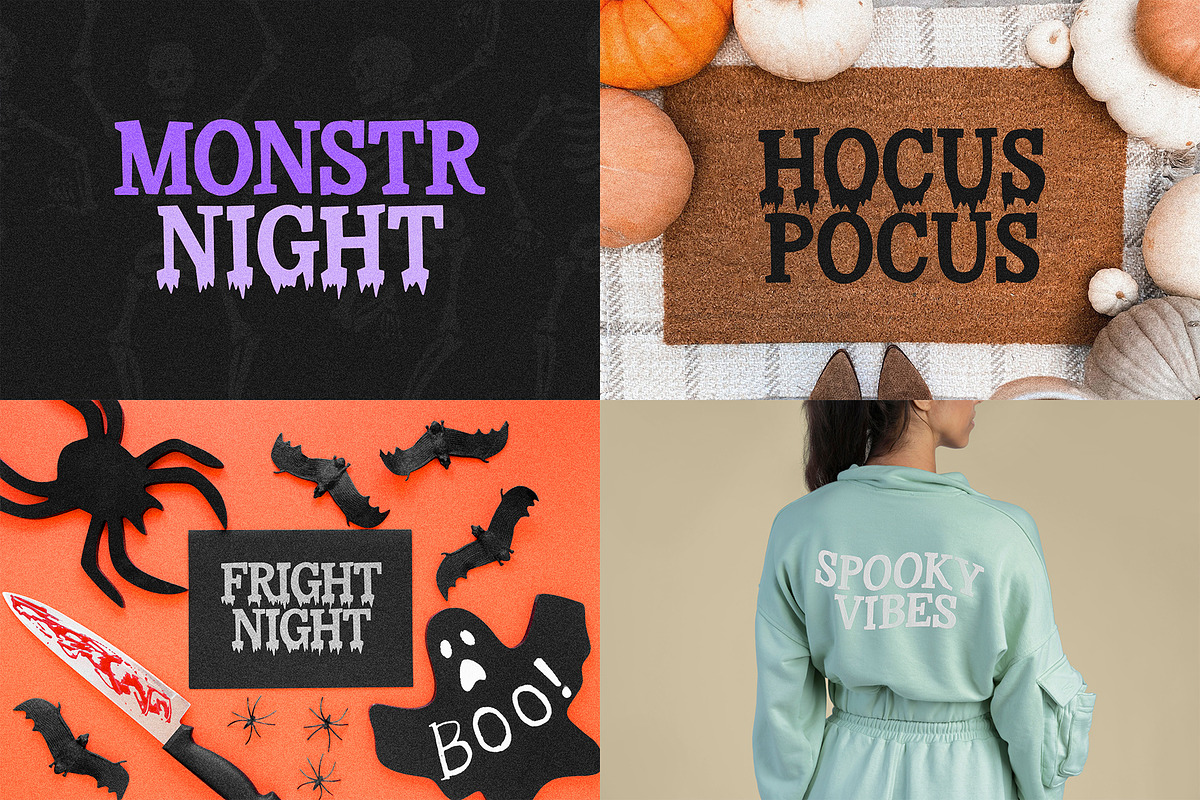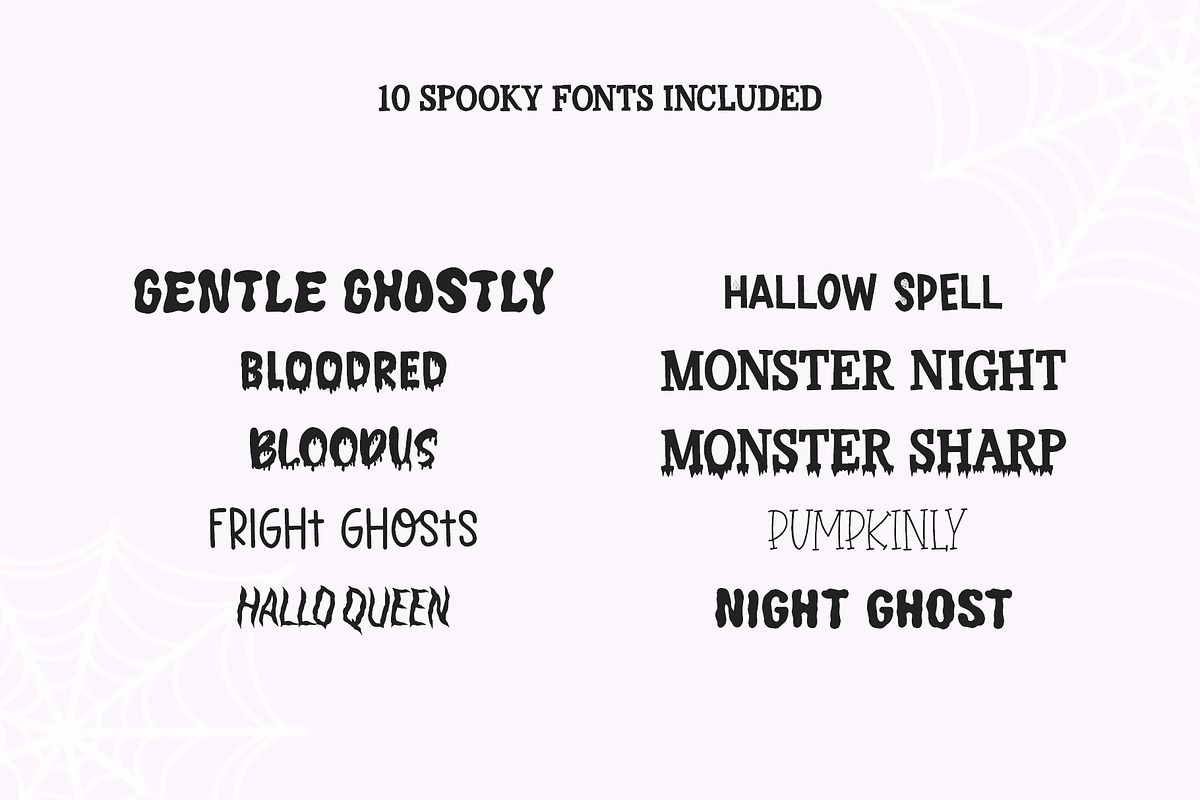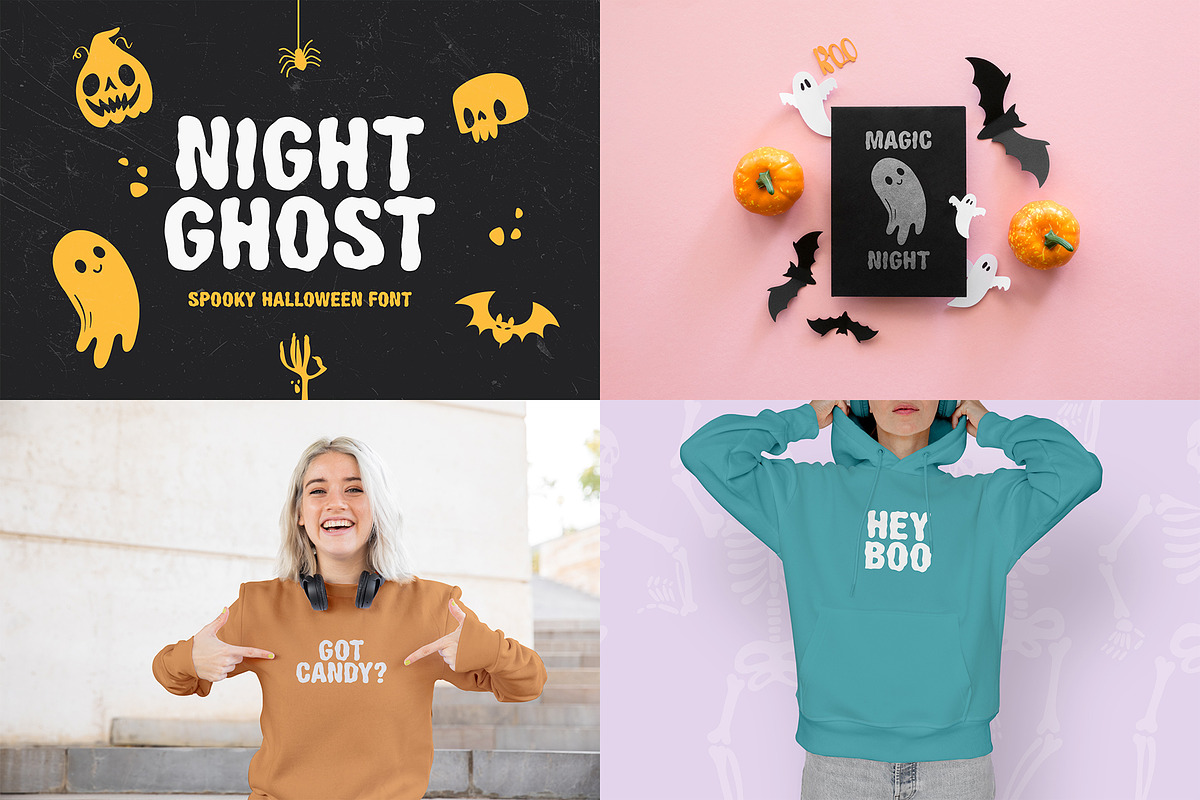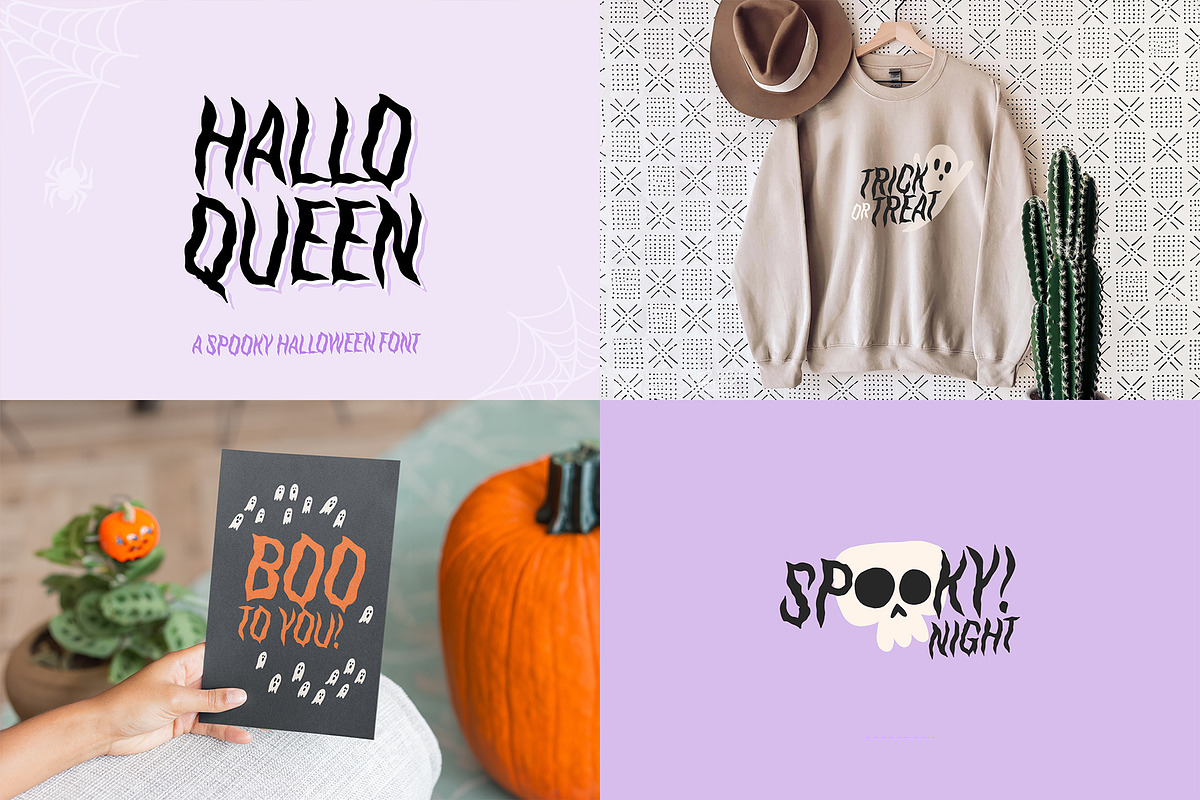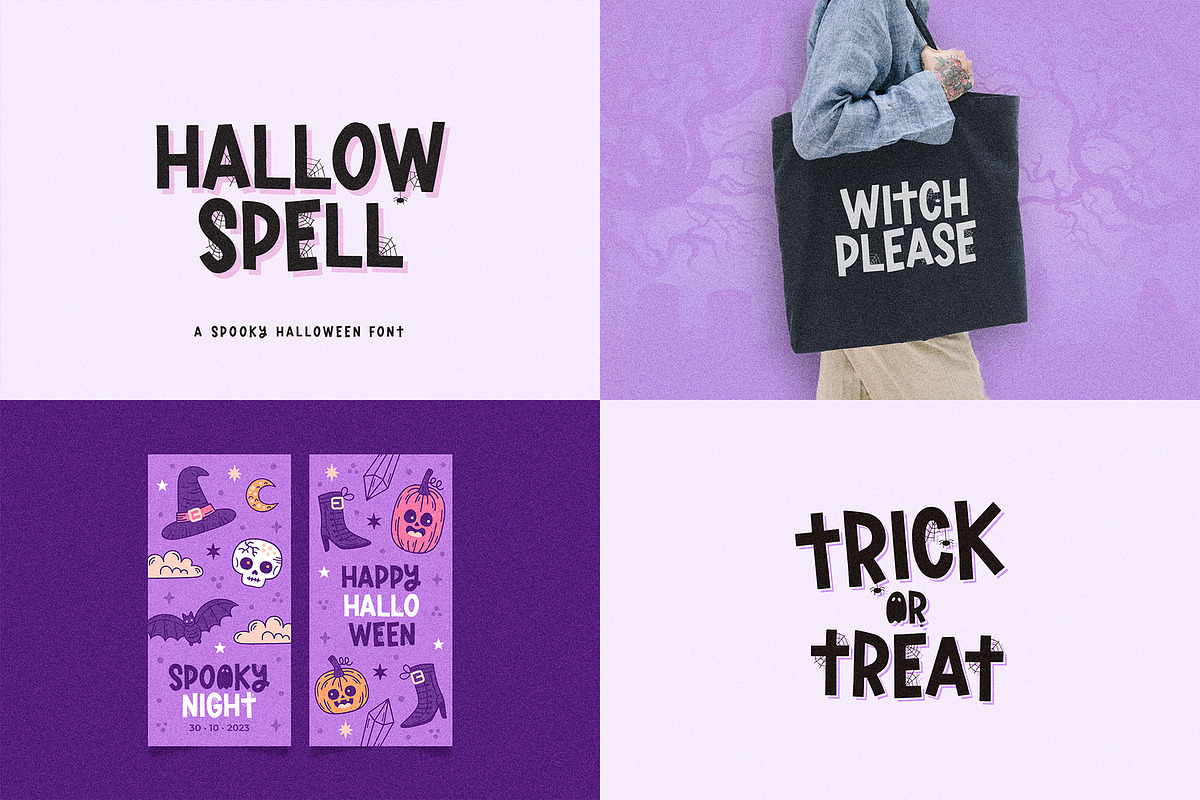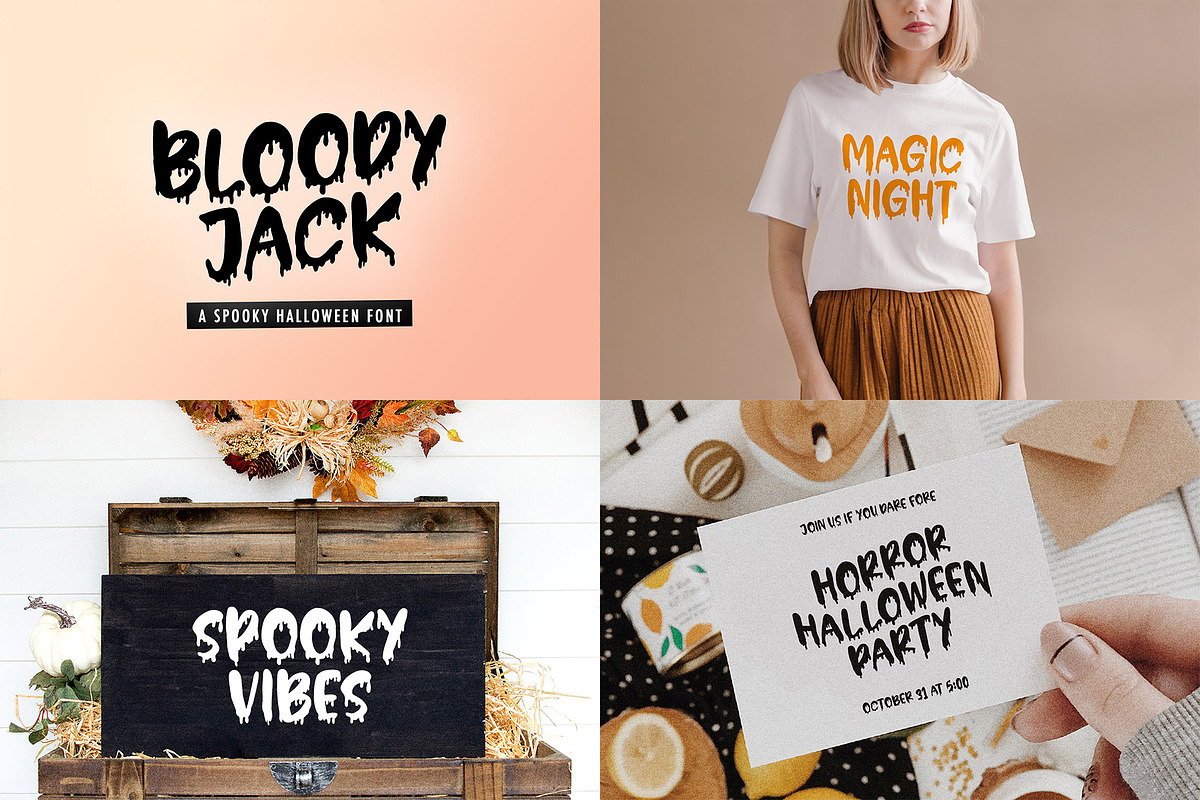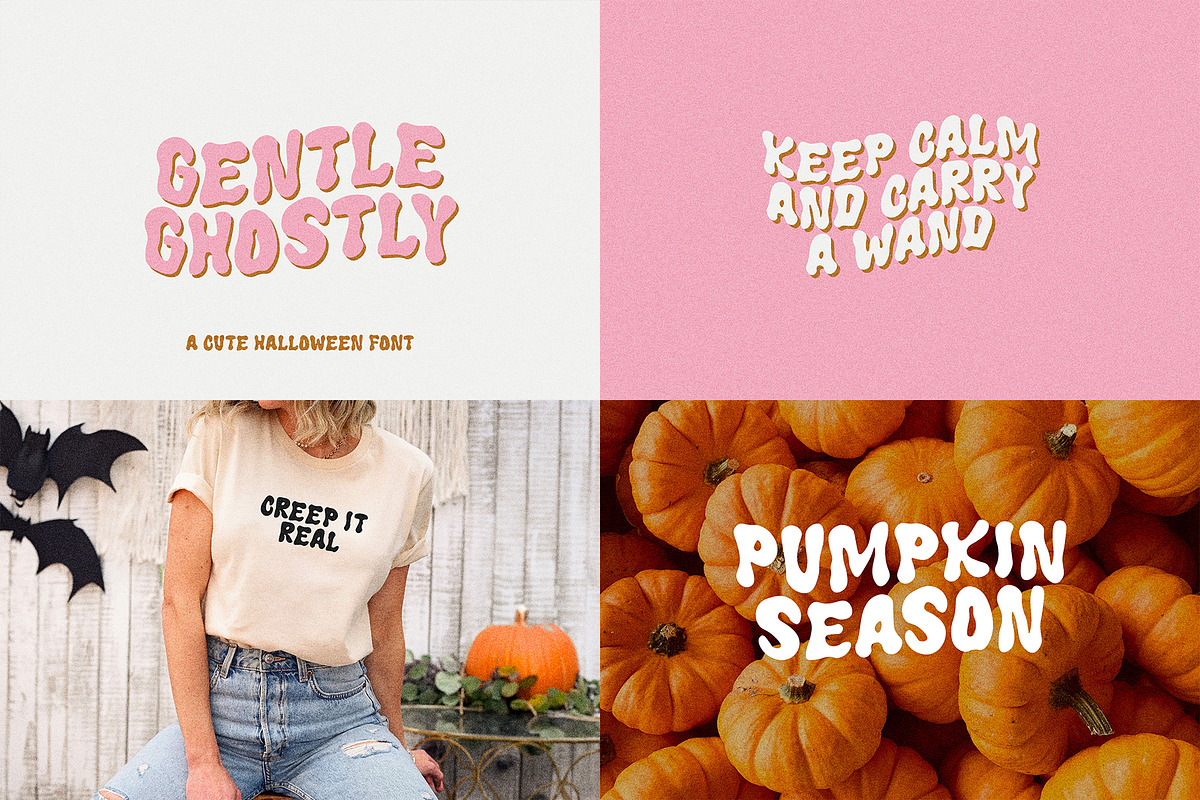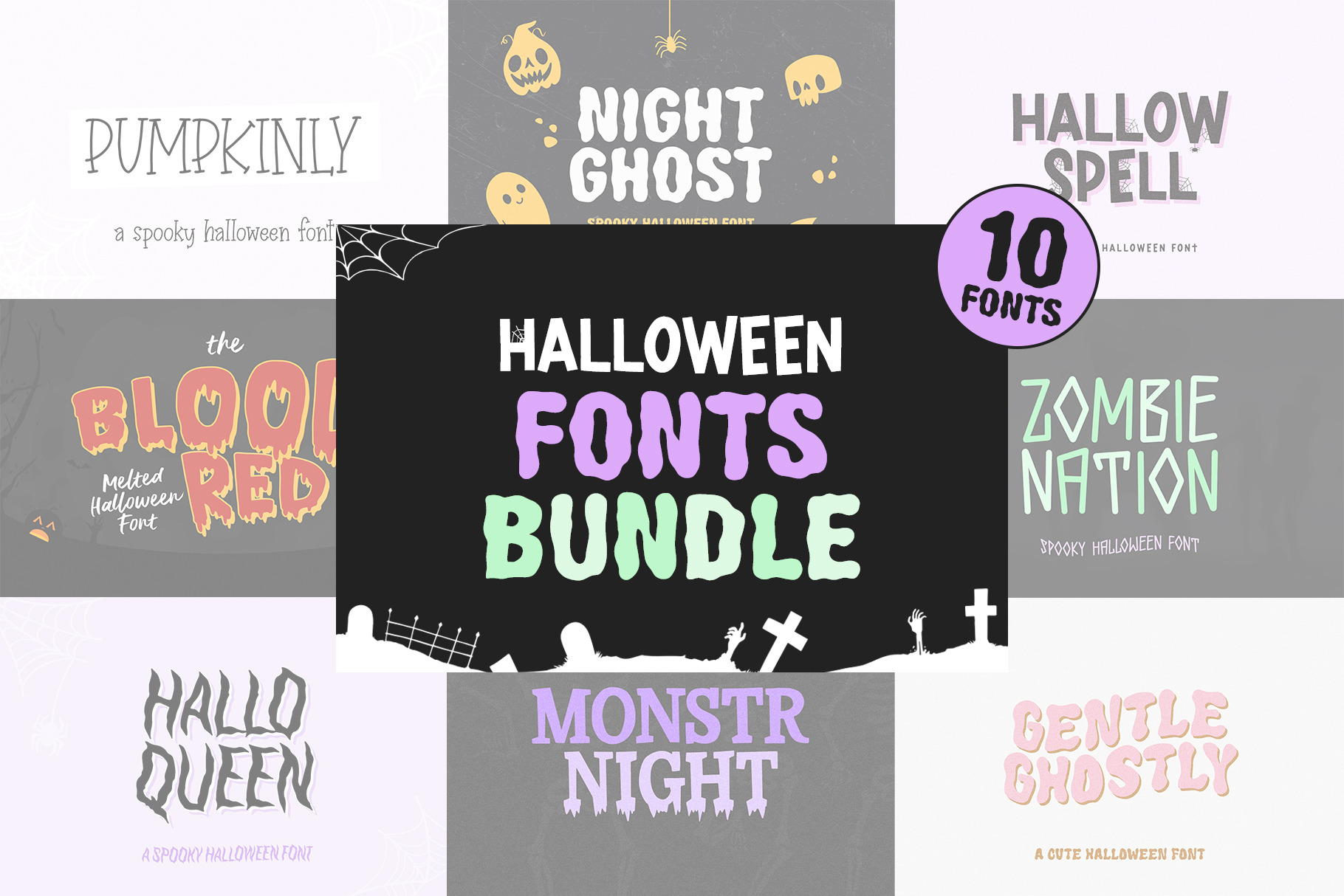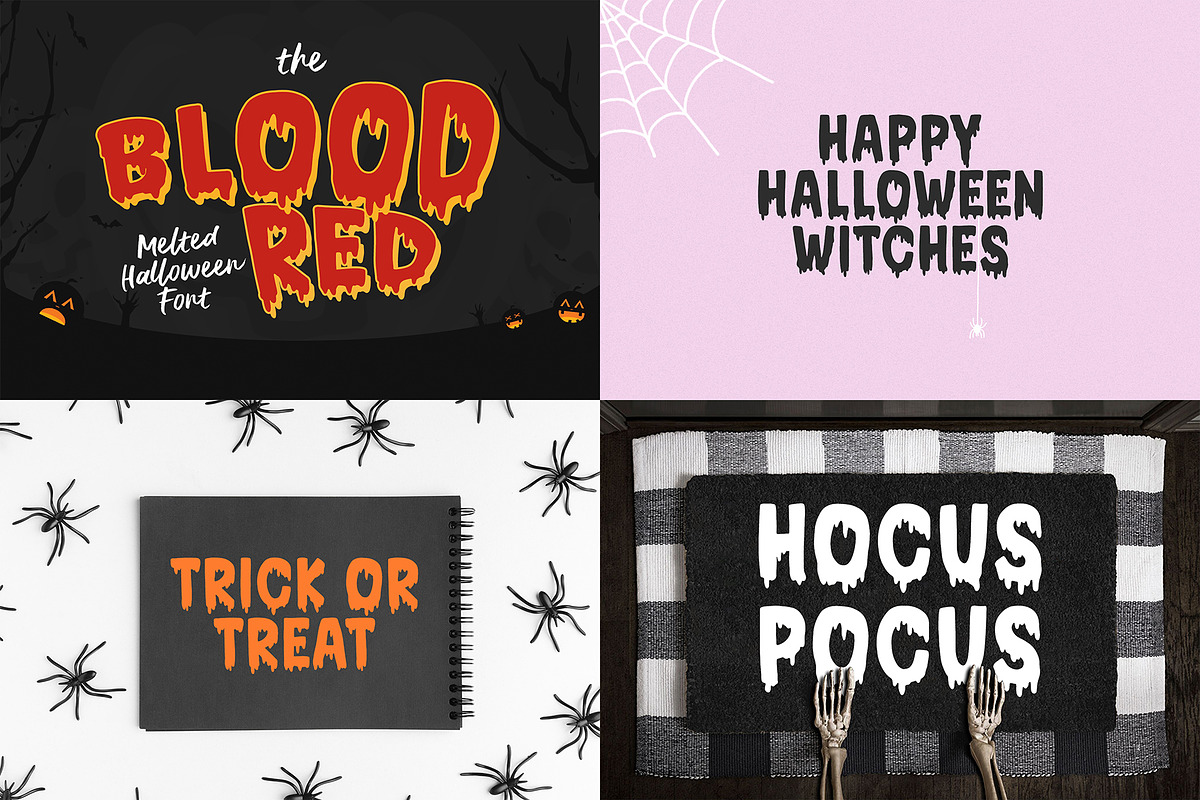
Halloween fonts bundle
Halloween fonts bundle will be perfect for halloween lettering, beautiful frame for your home, book covers, greeting cards, logos, marketing, magazines or anything that requires cute handwritten lettering :)
Inside 9 fonts:
- Fright Ghosts
- PUMPKINLY
- Bloodus
- Hallow Spell
- Monster Night
- Monster Night Sharp
- Night Ghost
- Halloqueen
- Bloodred